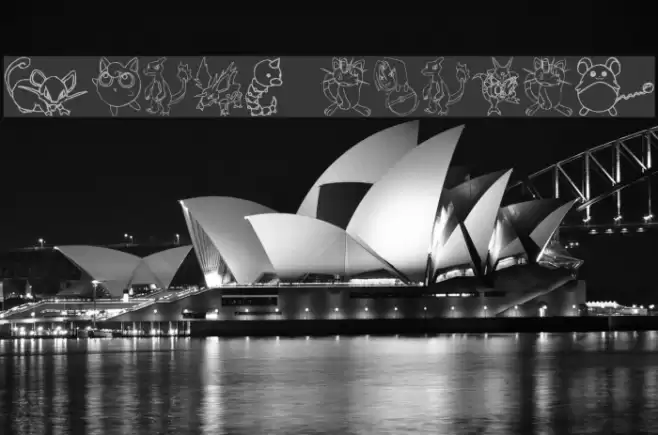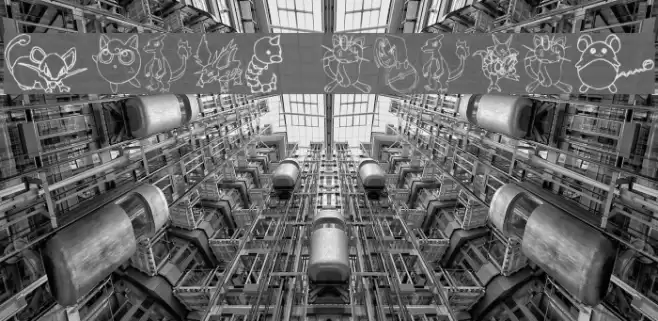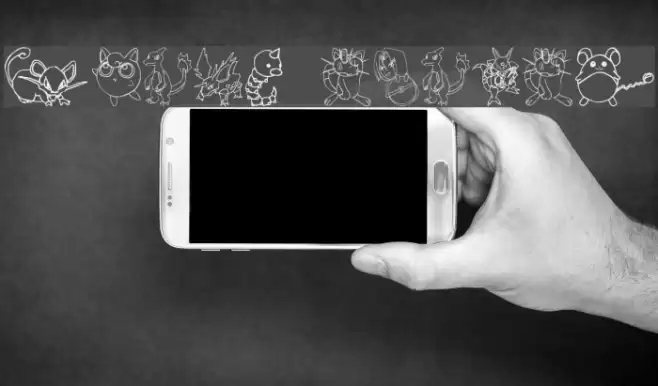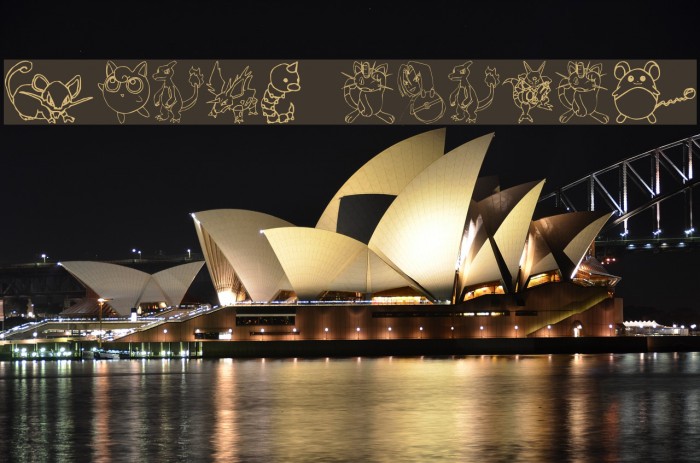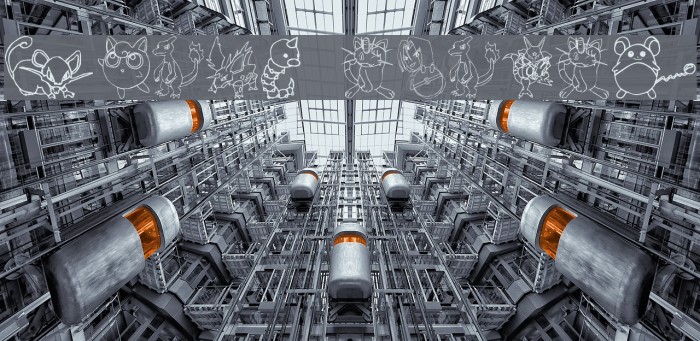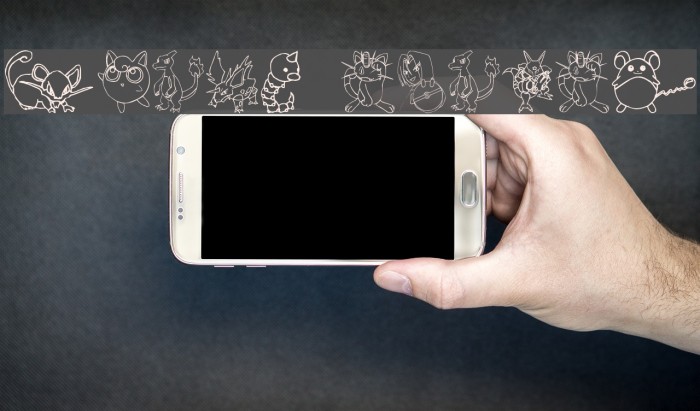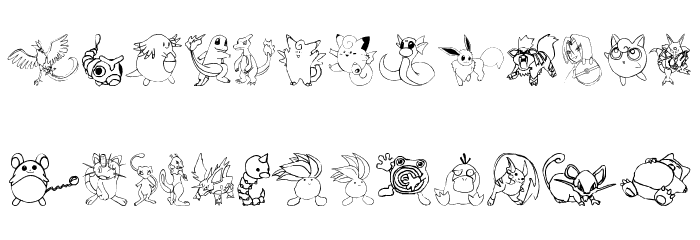
Tyler's Pokemon Font
Tyler's Pokemon Description
This is not a standard font; instead, it consists of outlined rectangular boxes for letters and numbers, with a set of hand-drawn Pokémon character illustrations in place of the alphabet and numbers. The style is playful and illustrative, with each character rendered in a simple black line art style.
A decorative, illustrative set featuring Pokémon characters instead of traditional glyphs from Images & Symbols fonts.
- Proposed Projects: Children's party invitations, themed posters, educational materials, fan art projects.
- Overall Style: Decorative, Playful, Illustrative
- Use Case: Themed graphics, posters, novelty projects